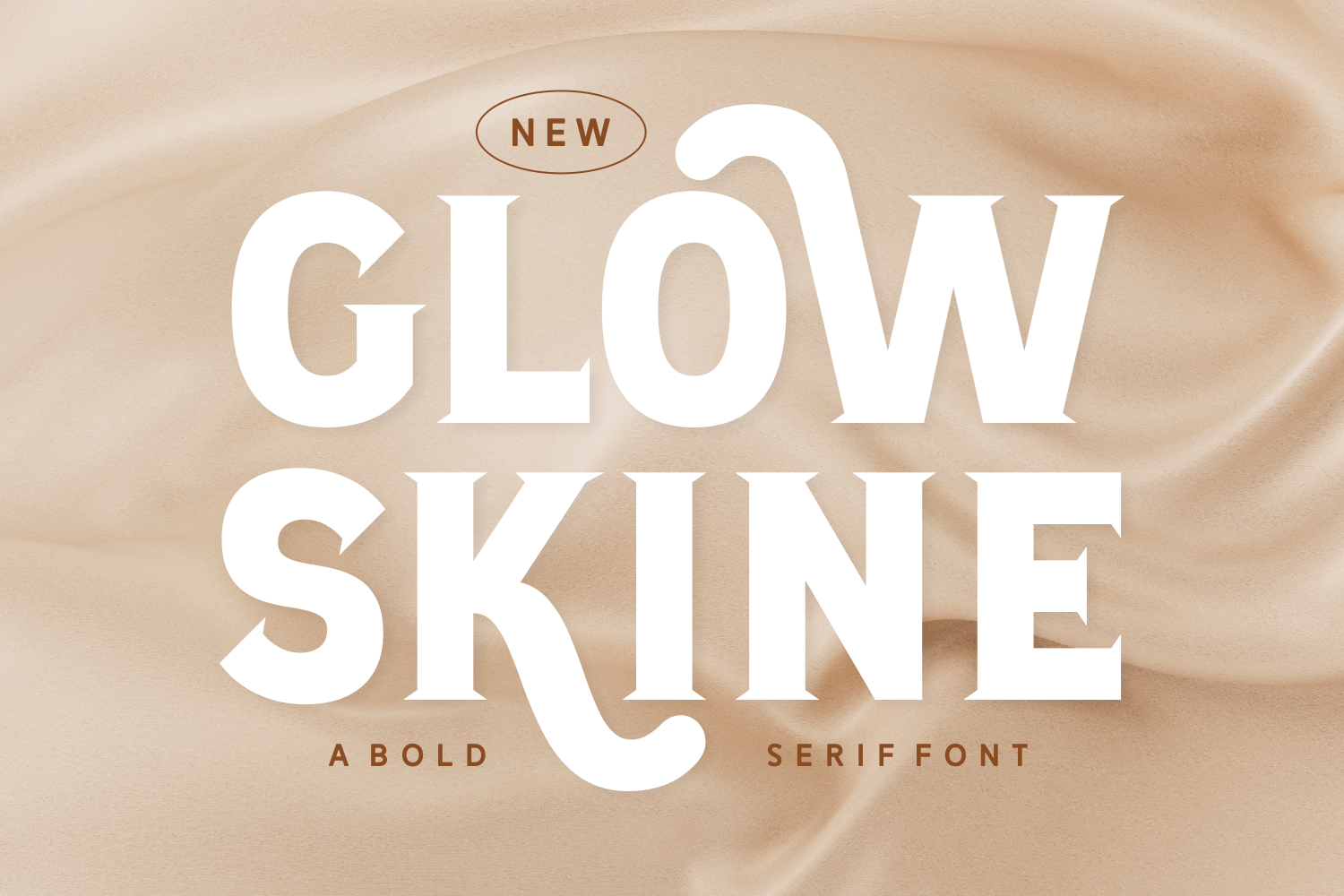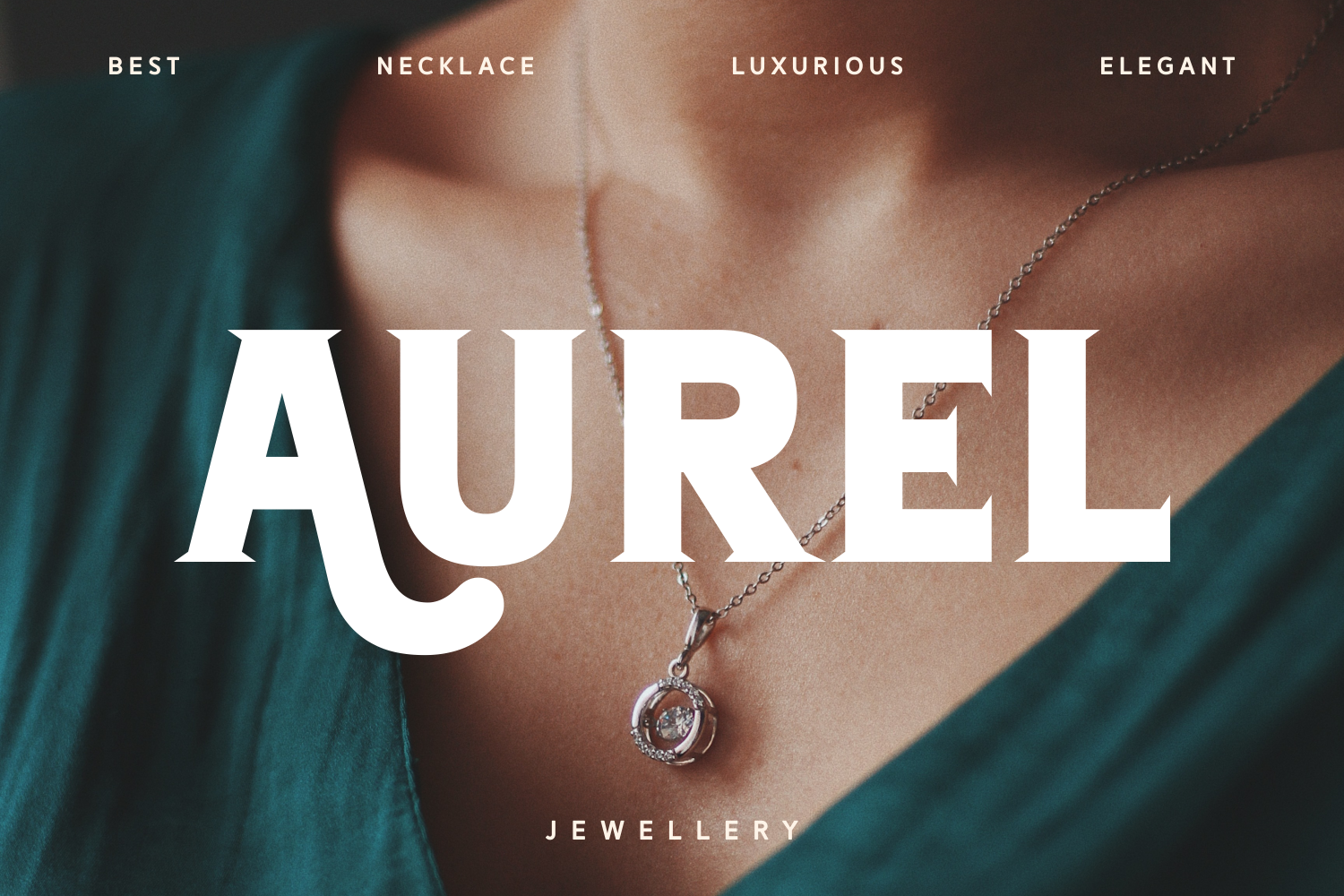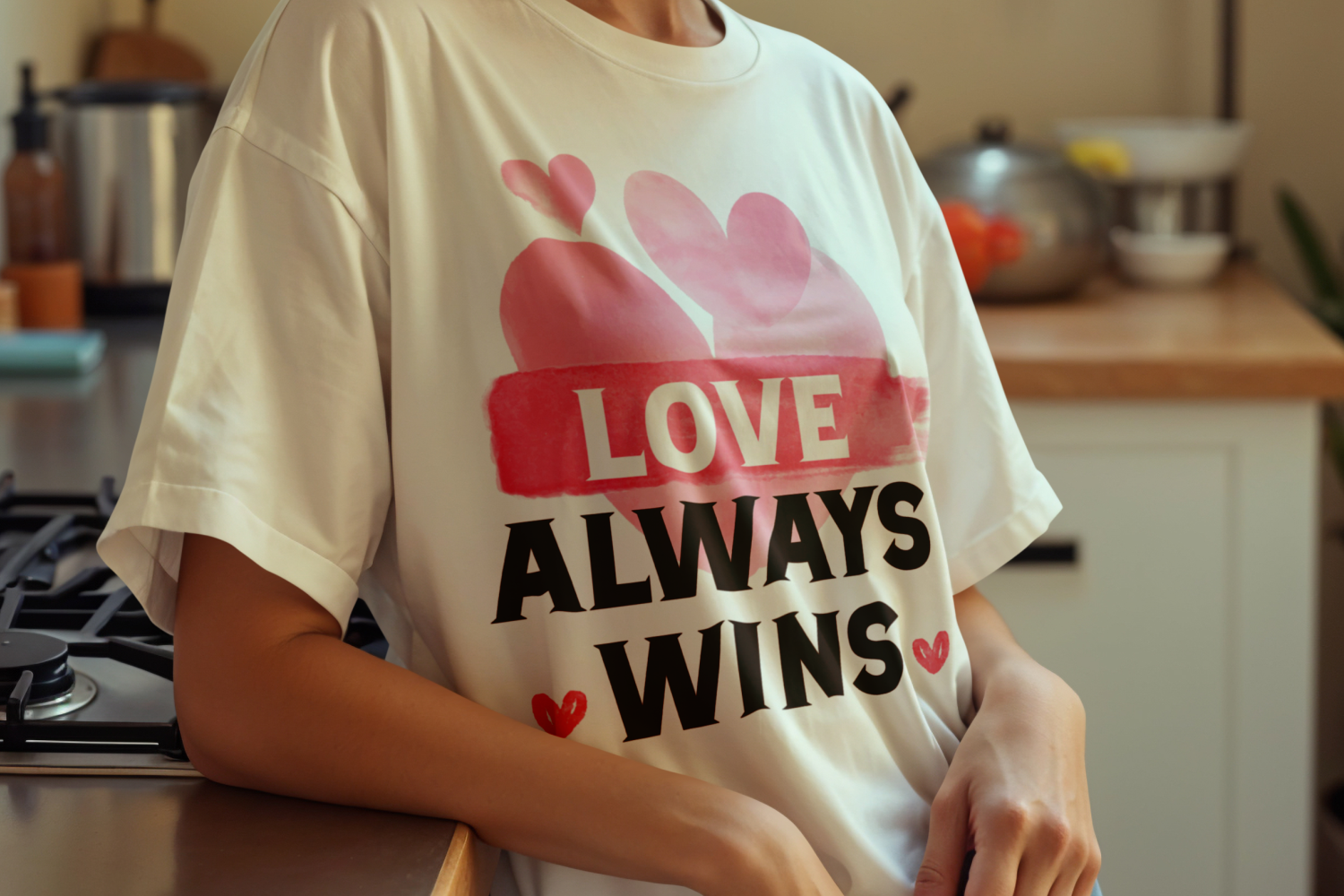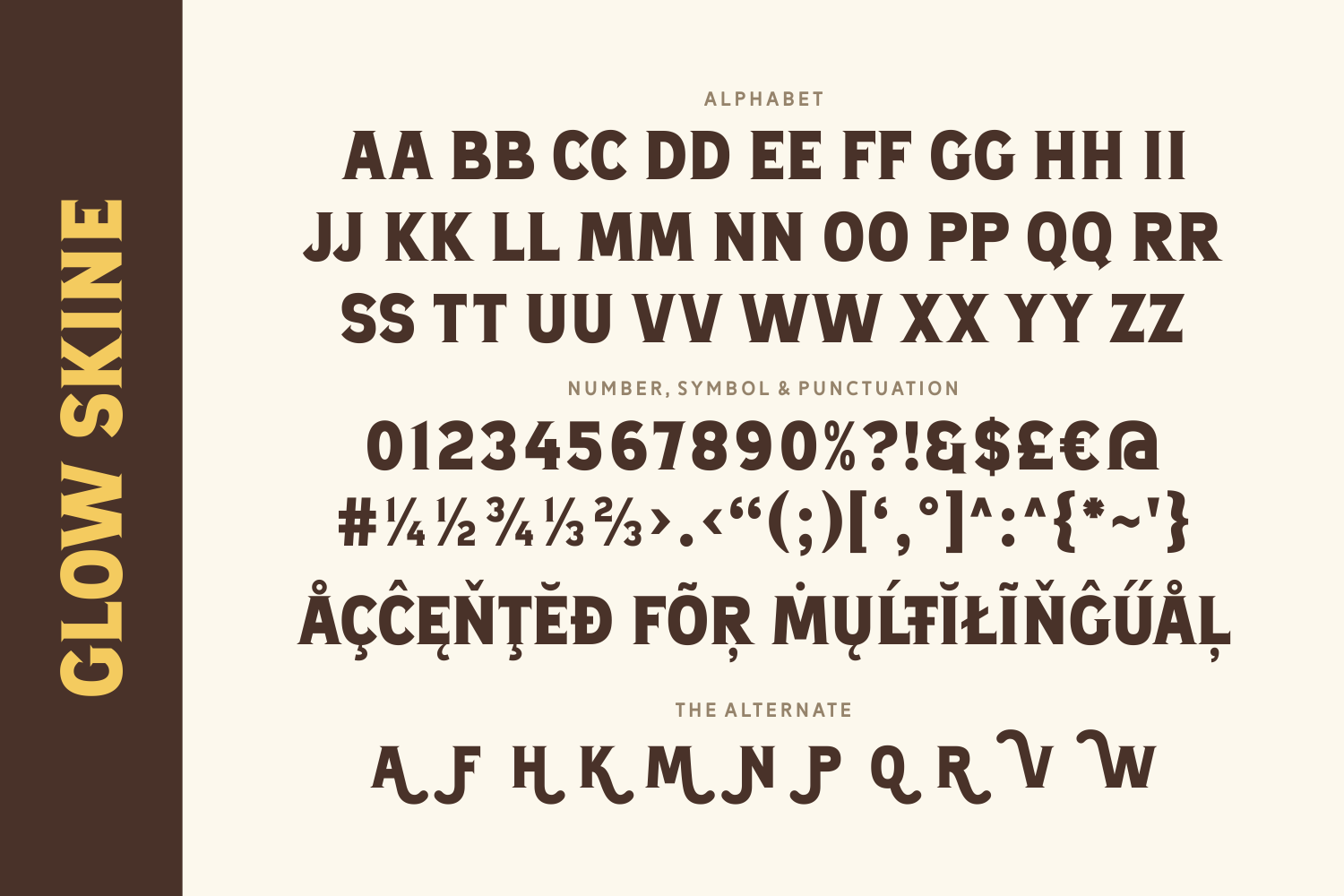
Glow Skine is a bold serif font that radiates confidence and flair. Featuring sharp serifs paired with playful swashes, this typeface brings a stylish twist to any headline. Ideal for beauty branding, fashion packaging, or editorial titles, Glow Skine delivers both power and personality in every letter.